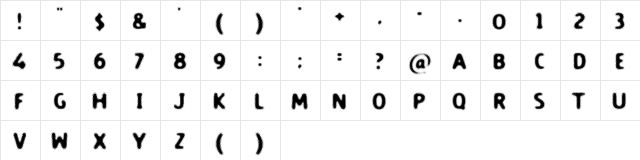
Cloud9 Regular
Design Context for Cloud9 Typeface
Cloud9 takes a measured approach to typography — its balanced proportions and neutral character make it a reliable workhorse for both digital and print work.
Pro Tip: Use Cloud9 in both headline and body roles to test its range before committing to a single application.